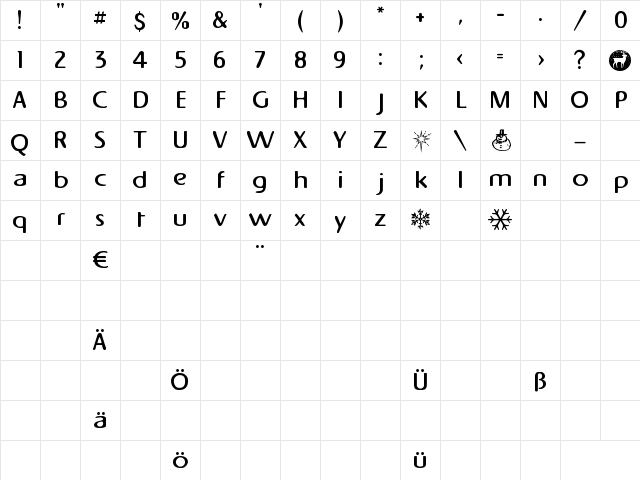
Napapiiri Regular Free Font
Napapiiri Regular
Design Context for Napapiiri
Napapiiri is a composed and adaptable typeface that performs quietly and consistently across a wide range of design contexts.